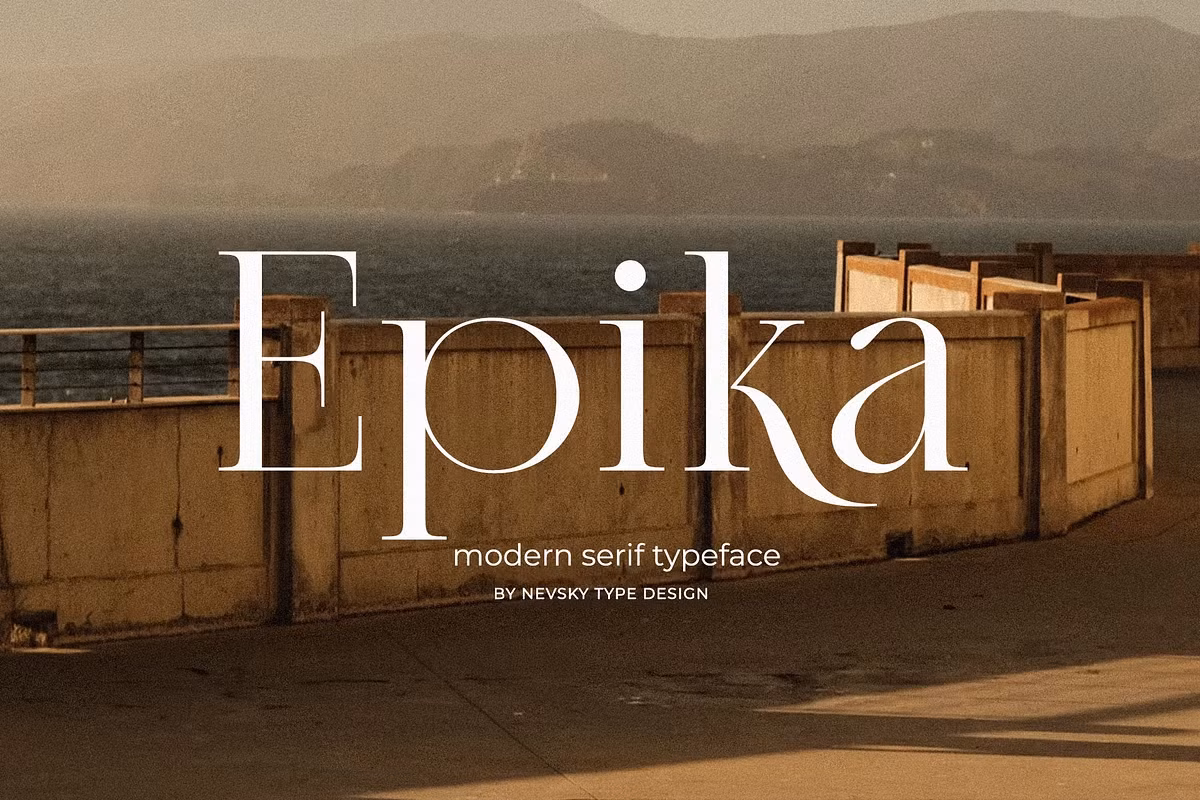
NT Epika Font Free Download is a modern, elegant typeface that blends clean lines with sophisticated proportions. Ideal for a variety of design projects, NT Epika is perfect for branding, logos, editorial design, packaging, and digital media. Its sleek, contemporary design ensures readability while maintaining a stylish and professional look.
With its versatile, timeless appeal, this font works well across multiple design applications—whether you’re creating modern websites, professional print materials, or elegant product packaging.